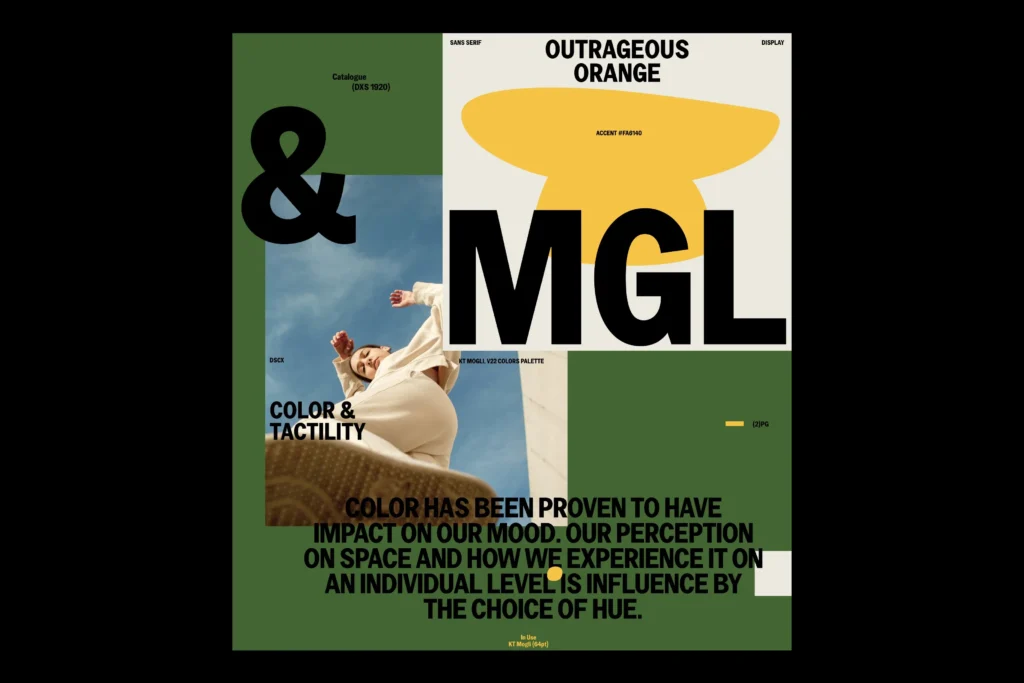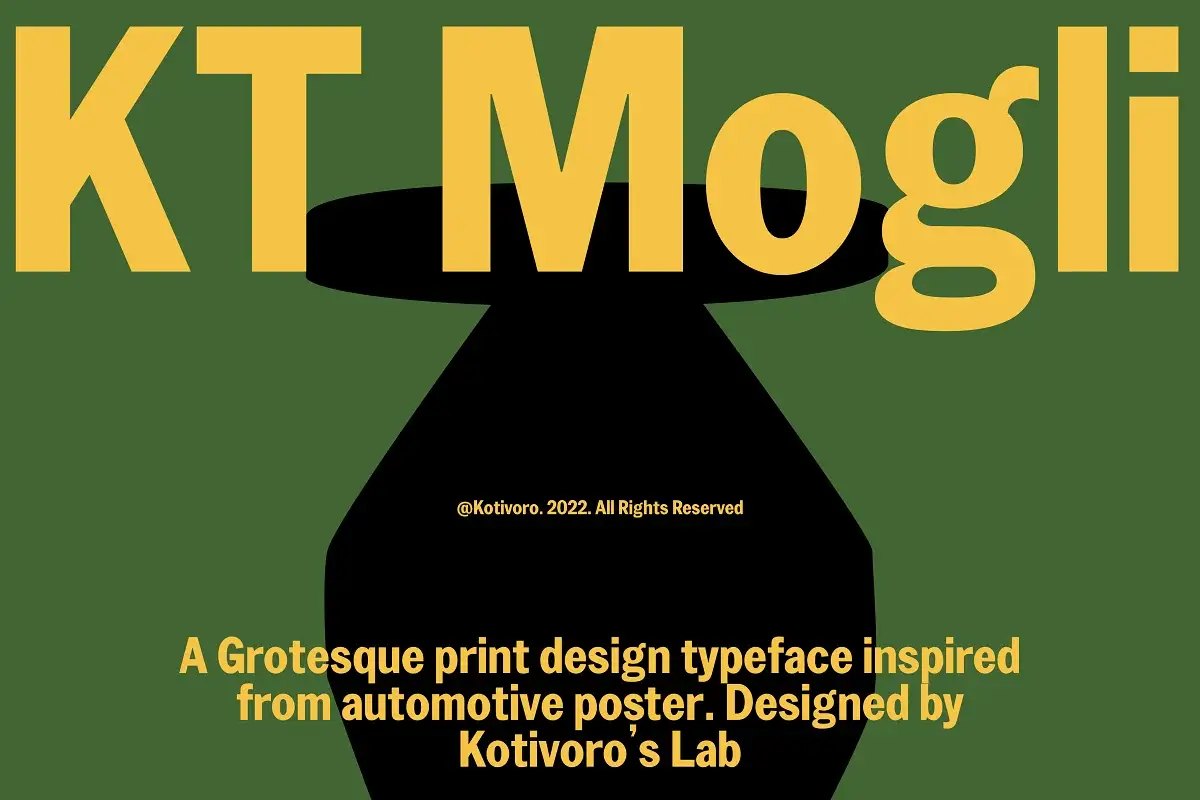
Introducing KT Mogli: a captivating Grotesque print design typeface meticulously crafted for both headline and body copy purposes. Inspired by automotive posters, this single-style font strikes a harmonious balance between the dynamic essence of humanist sans and the structured nature of grotesk. Its clarity emanates from broad proportions and generous spacing, making it a versatile choice across various projects—be it posters, user interfaces, magazines, logos, apparel designs, and more.
Key Features:
- 432 Glyphs
- Diacritics for comprehensive multilingual support
- Extensive language support, covering over 100 languages
With its meticulous design and extensive character set, KT Mogli is poised to elevate your creative endeavors across diverse design applications.
KT Mogli – Free Dynamic Sans Serif Font